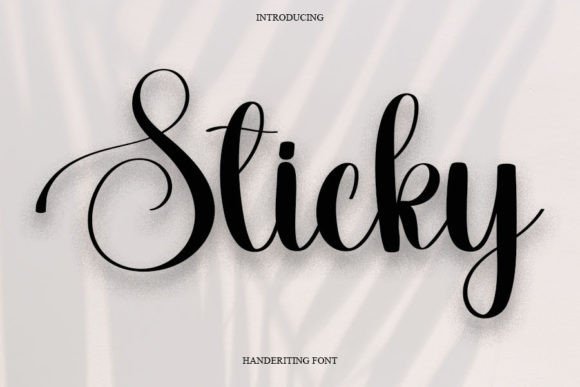
In a world saturated with digital monotony, break free from the ordinary and embrace the charm of Sticky Font. This exquisite script font, crafted by the talented artisans at Harlek Studio, is not just a collection of letters; it's an invitation to unleash your creativity and add a touch of heartfelt authenticity to your designs.
Step into a world where elegance and playfulness dance hand in hand. Sticky Font's fluid strokes and whimsical curves evoke a sense of nostalgia, reminiscent of handwritten letters penned with care. Each character carries a unique personality, adding depth and charm to your designs.
Whether you're a seasoned designer, a budding entrepreneur, or simply someone who values the art of beautiful typography, Sticky Font is your perfect companion. Its versatility knows no bounds, lending its graceful presence to a myriad of projects.
Envision your social media posts adorned with Sticky Font's captivating allure, drawing your audience in with its undeniable charm. Design eye-catching logos that exude warmth and personality, leaving a lasting impression on your customers. Craft stunning wedding invitations, greeting cards, and posters that ooze elegance and heartfelt emotion.
With Sticky Font, you're not just downloading a font; you're embarking on a journey of creative expression. Its user-friendly nature makes it a joy to work with, allowing you to effortlessly weave your words into works of art.
Don't settle for ordinary fonts that blend into the background. Embrace the beauty of Sticky Font and watch your designs come to life with a touch of magic. Let your creativity soar and experience the joy of creating designs that captivate and inspire.